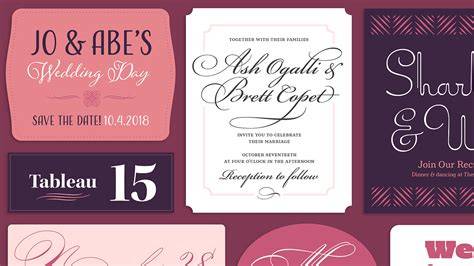
Wedding Fonts Adobe: Get Ready For The Perfect Day
As the big day draws ever closer, finding the right font for your wedding invitations and programs can be an overwhelming task. Adobe’s library of fonts makes it easy to find the perfect font for your special day. From classic, elegant designs to modern, chic typefaces, Adobe has everything you need to make sure your wedding invitations, programs and other materials look absolutely stunning.
The Benefits of Adobe Fonts
Choosing the Right Font
When selecting a font for your wedding invitations and stationery, it’s important to keep in mind the overall look and feel of your event. If you’re going for a more classic, timeless look, consider choosing a classic serif font such as Adobe’s Minion Pro or Adobe Garamond. For a more modern, contemporary feel, opt for a sans serif font such as Adobe Proxima Nova or Adobe Myriad Pro. You can also add a unique touch to your wedding stationery by using a script font like Adobe Poetica or Adobe Trajan Pro.
Finding the Perfect Font
Adobe’s library of fonts makes it easy to find the perfect font for your special day. The fonts are organized into categories, such as Classic, Modern, Handwritten, and Script. Within each category, you can search by keyword or browse through the fonts to find the one that best suits your needs. To ensure that you get the best results, you can also customize your search by selecting the type of font (serif, sans serif, script, etc.), font size, and font weight.
Start Designing with Adobe Fonts
Now that you’ve selected the perfect font, you can start designing your wedding stationery. Adobe’s library of fonts also includes a variety of tools and resources to help you create beautiful, professional-looking wedding stationery. For example, you can use Adobe’s Typekit to preview and customize your fonts in real-time, or use Adobe’s Font Playground to test different fonts and color combinations. With Adobe’s library of fonts, you can be sure that your wedding stationery will look its absolute best.